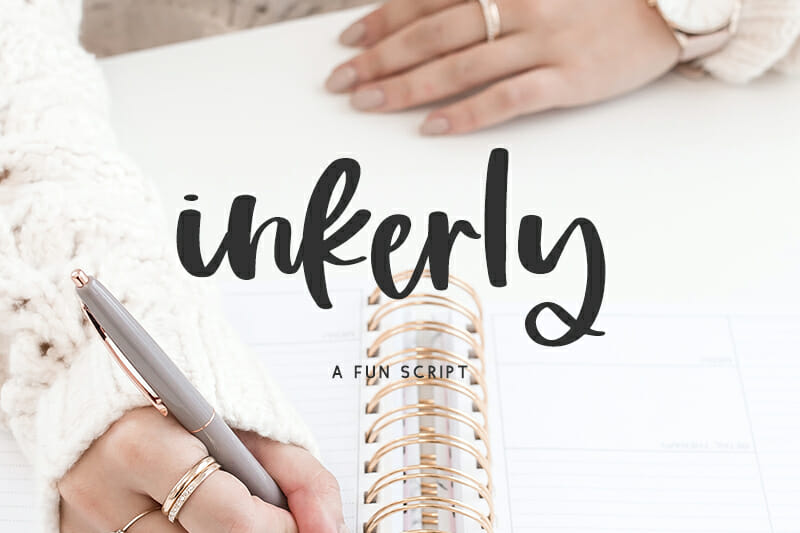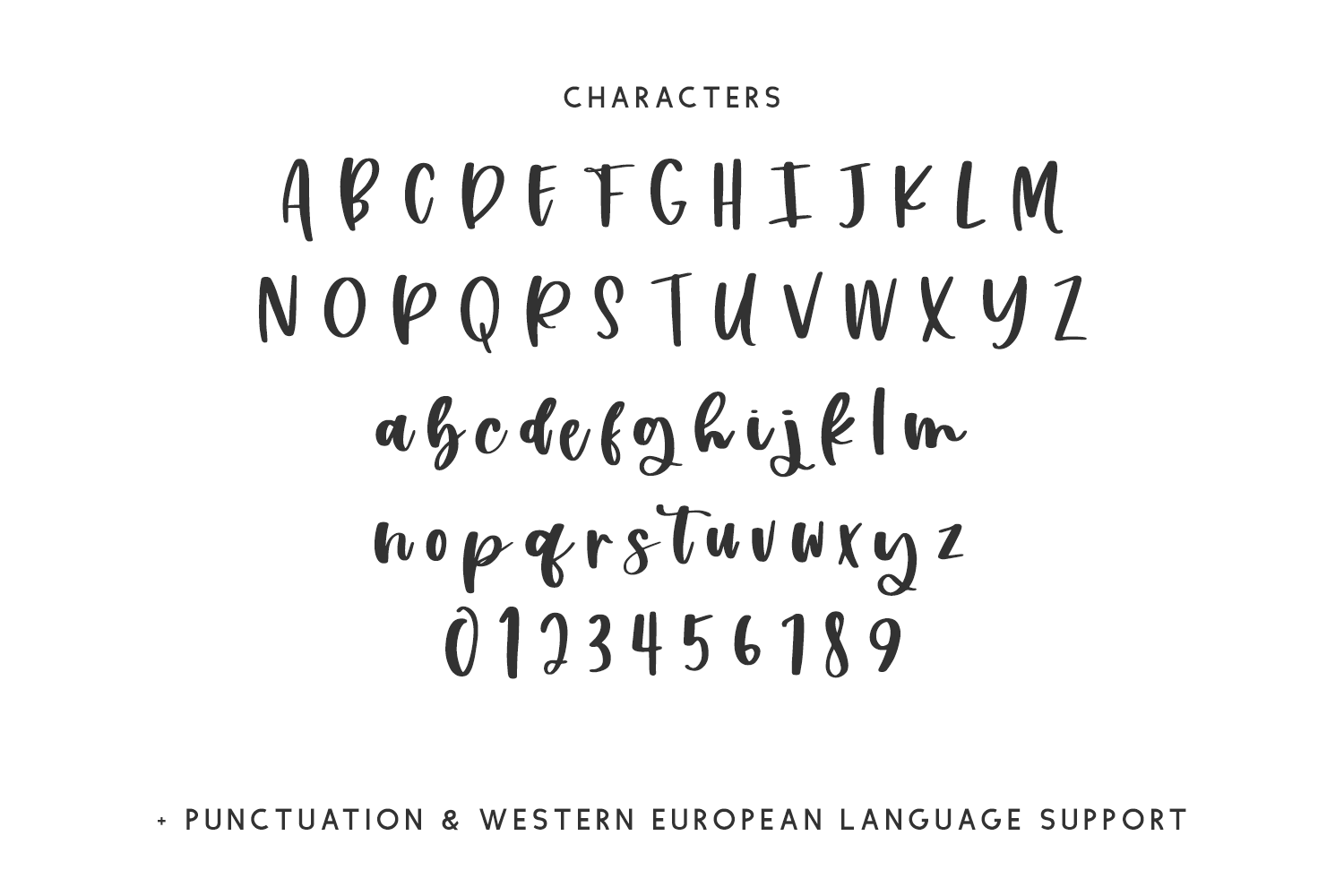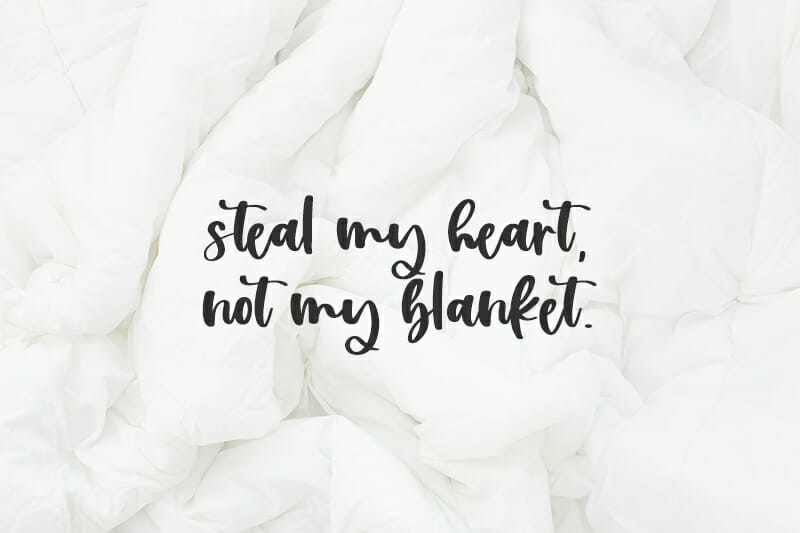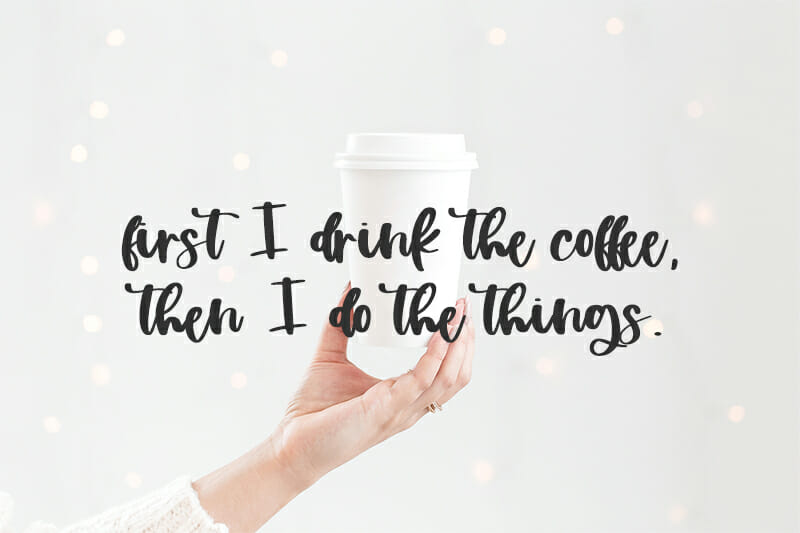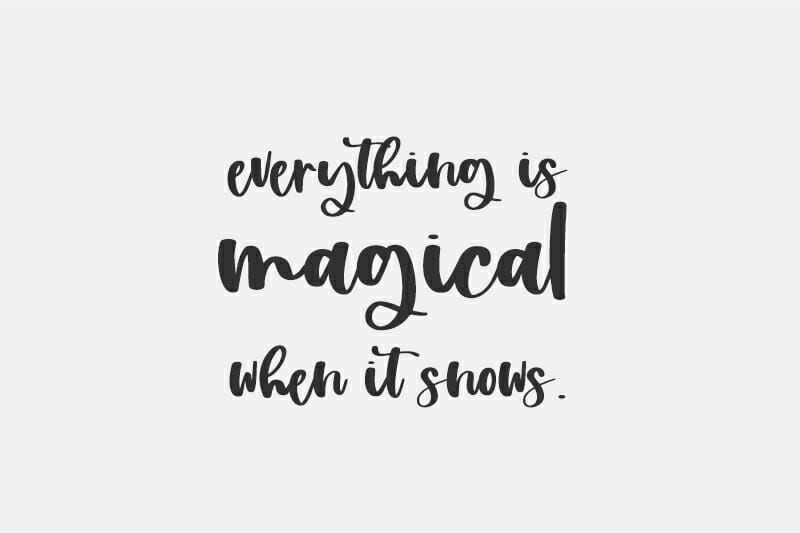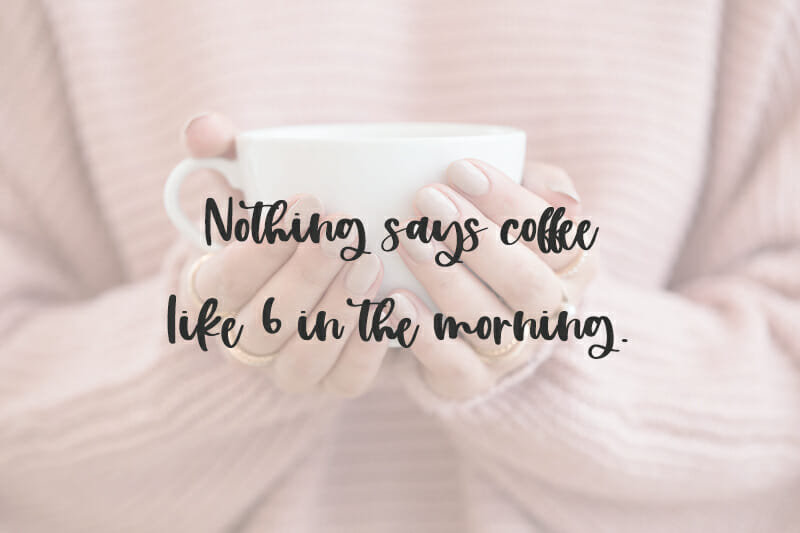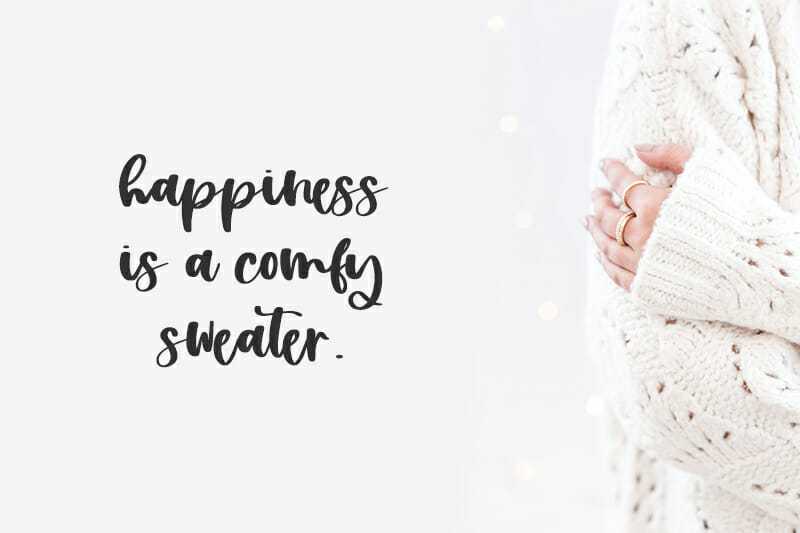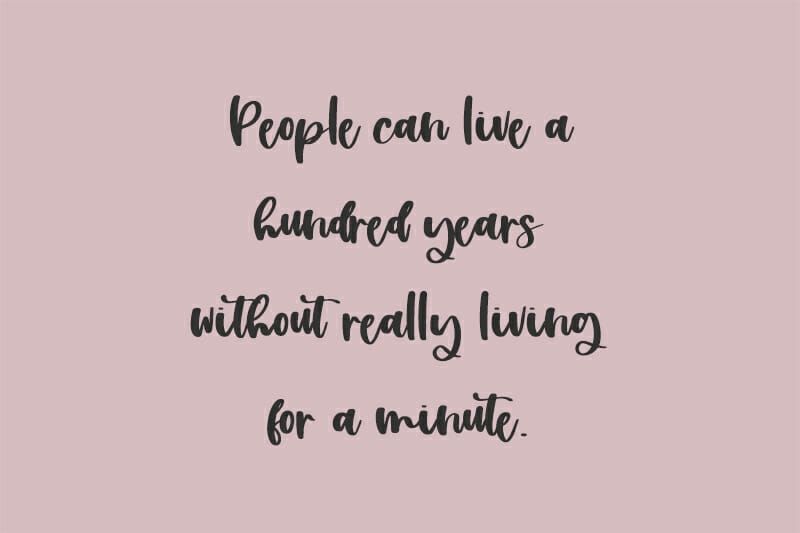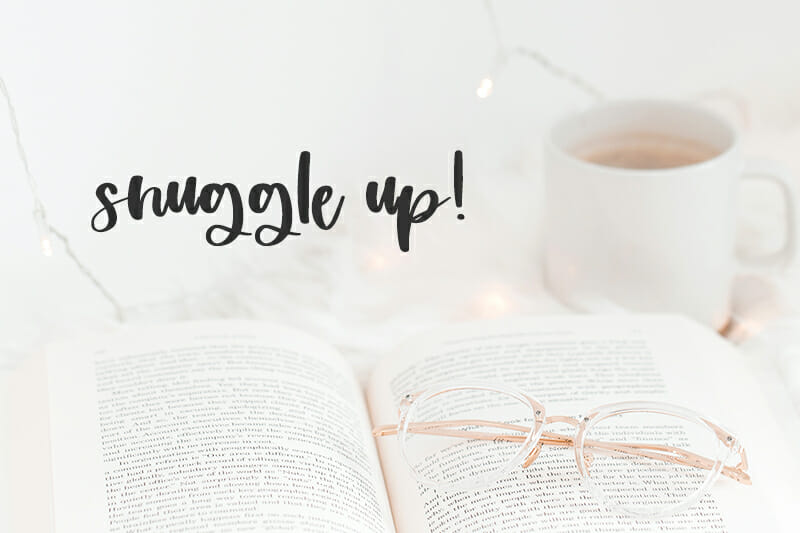
Inkerly Script
Introducing Inkerly, a chunky handlettered font. Inkerly features a semi-script look with a cute bouncy baseline.
Inkerly is best for:
– crafting with your Cricut or Silhouette machine, as it features super smooth lines for an easy cut
– logos + branding
– clean print design, like magazines + flyers
– header elements that need handwritten touch
– quote graphics for social media